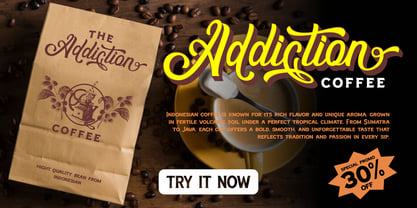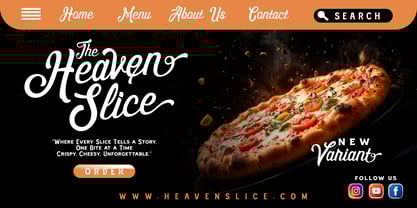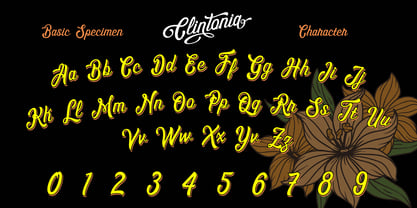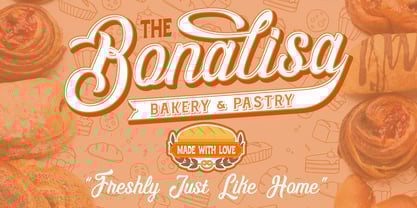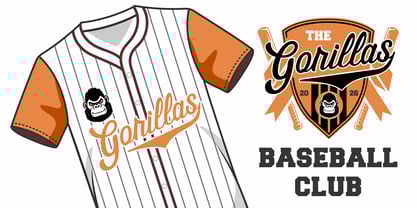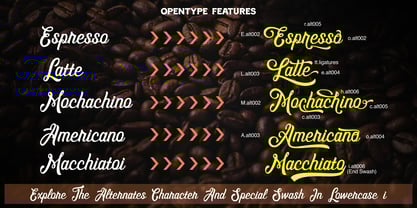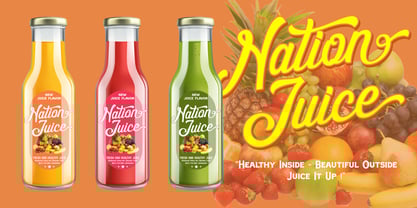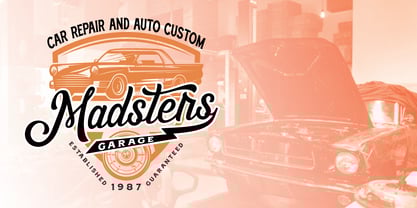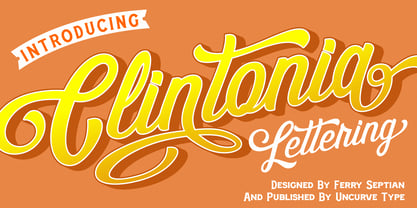
Clintonia
by Uncurve
The Clintonia Font Family was designed by Ferry Septian and published by Uncurve. Clintonia contains 1 styles.
Clintonia – Playful Script Display Font Clintonia is a playful and expressive script display font inspired by hand-drawn lettering, blending modern and vintage styles into one eye-catching typeface. Designed with plenty of alternates and unique end swashes, this font allows you to create natural, dynamic lettering with a strong visual impact. Perfect for branding, lettering logos, postcards, greeting cards, labels, apparel, food and drink posters, titles, invitations, social media posts, websites, packaging, café or restaurant menus, athletic and baseball logos, sporty designs, flyers, retro projects, garage badges, and much more. Clintonia pairs beautifully with serif or sans serif fonts, making it a versatile choice for designers who want bold, playful, and stylish script typography.